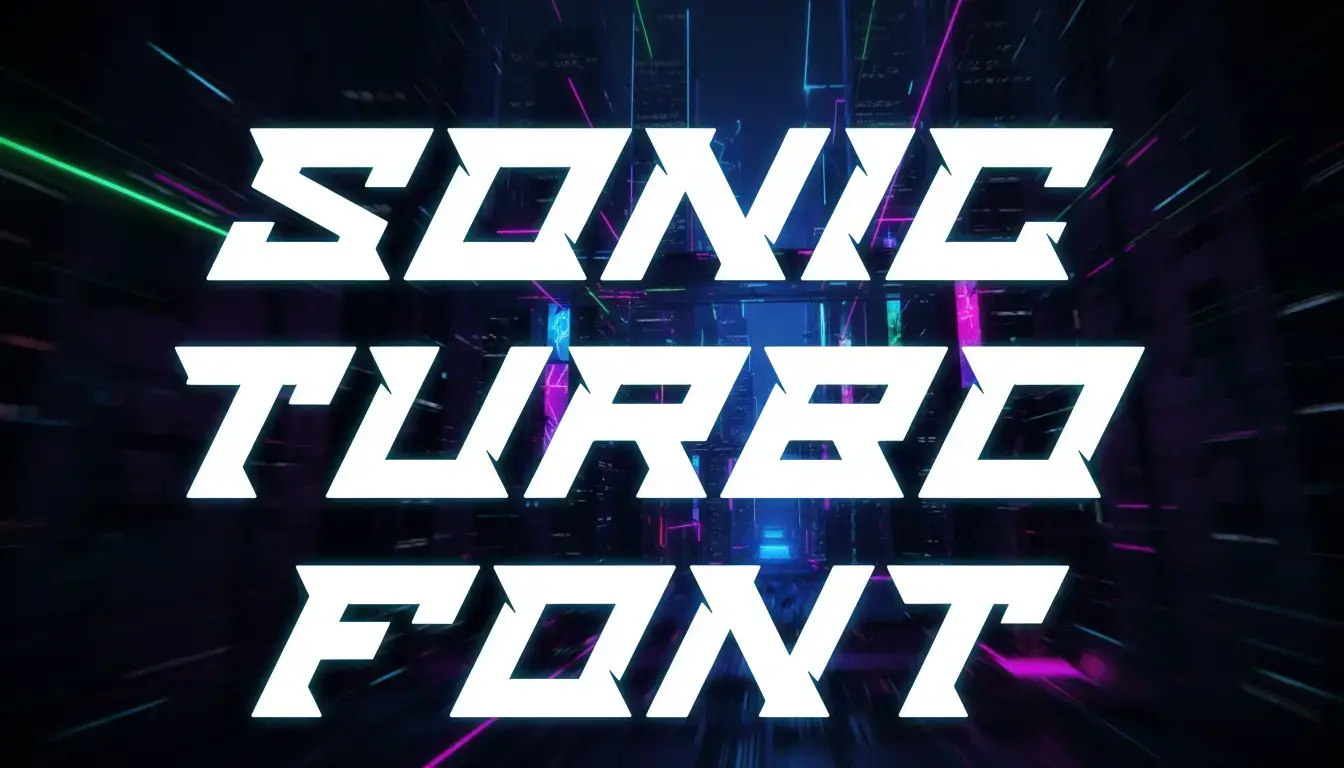
Sonic Turbo Font
Sonic Turbo
Sonic Turbo is a techno font created by Asep Saefulloh and released through Figuree Studio. Its angular, engineered shapes look right at home on screens and tech products. You can download it for free and test it with your own words in the preview above.
What You Can Type With Sonic Turbo
With complete upper and lowercase letters and all ten digits, Sonic Turbo is ready for real wording, not just a single headline. Everyday marks like &, !, ? and @ are there too. There are no accented letters like é or ñ, so it's best kept to English text.
Where Sonic Turbo Works Best
Sonic Turbo is a natural fit for gaming logos, tech branding and futuristic posters. Try it on a dark background with a bright accent color for a sharp, modern look.
Does Sonic Turbo support accented letters?
No. Sonic Turbo has no accented letters such as é, ñ or ü, so it's best for English text.
What fonts pair well with Sonic Turbo?
A simple sans serif like Roboto keeps longer text easy to read next to it.